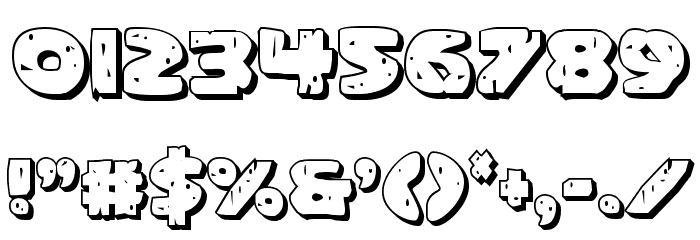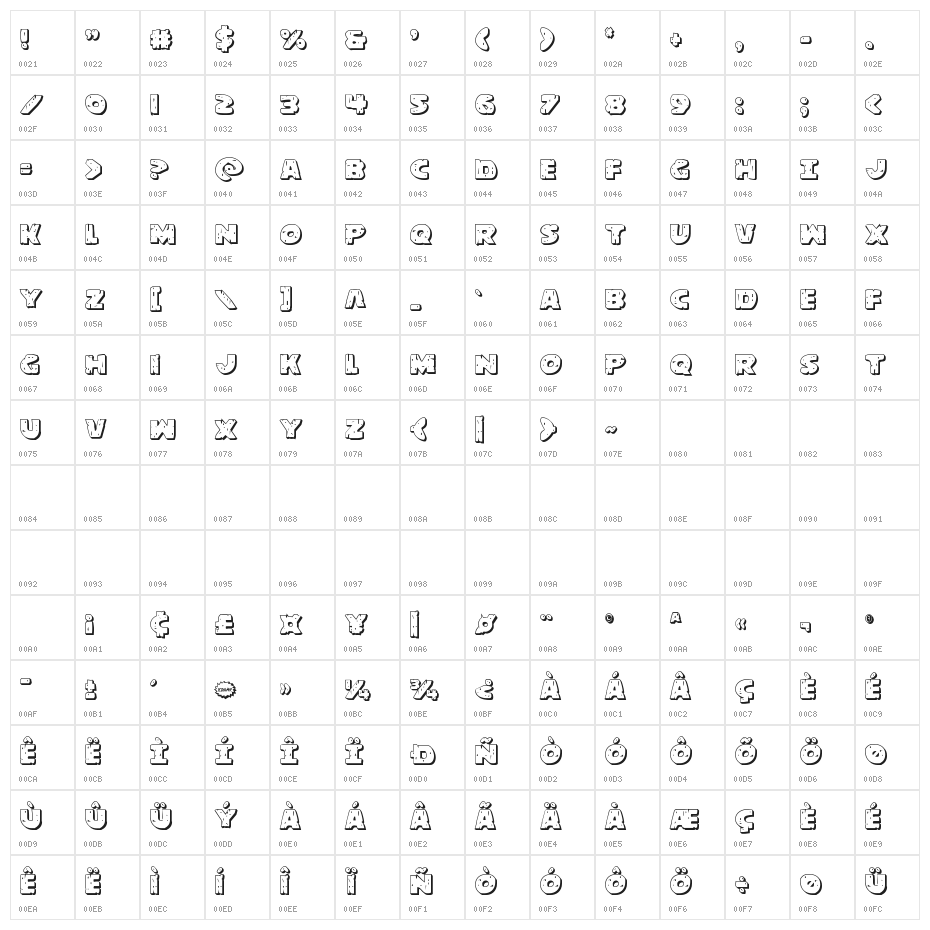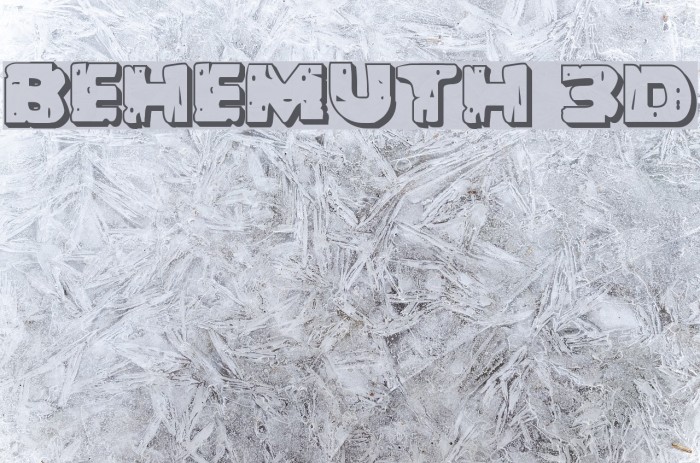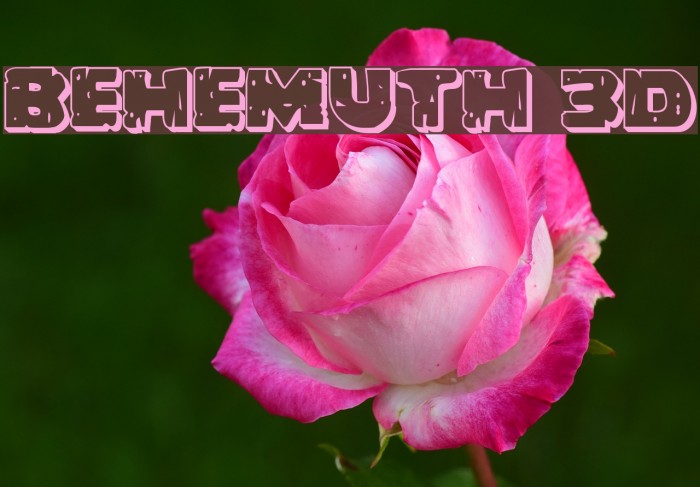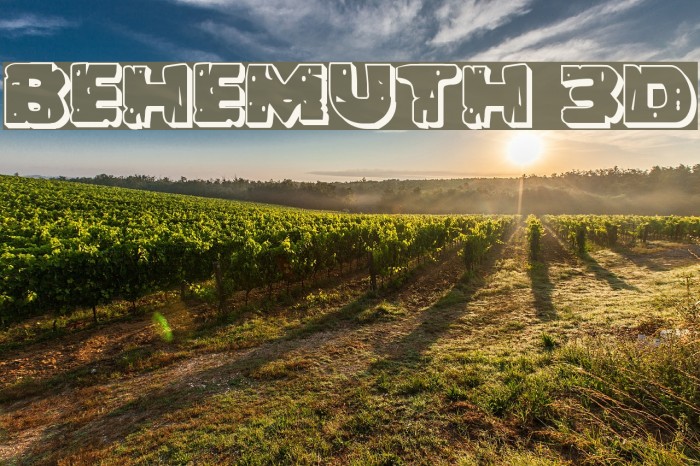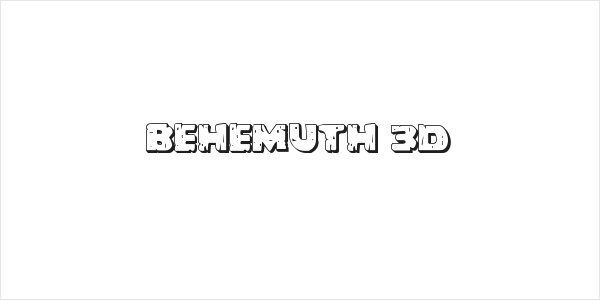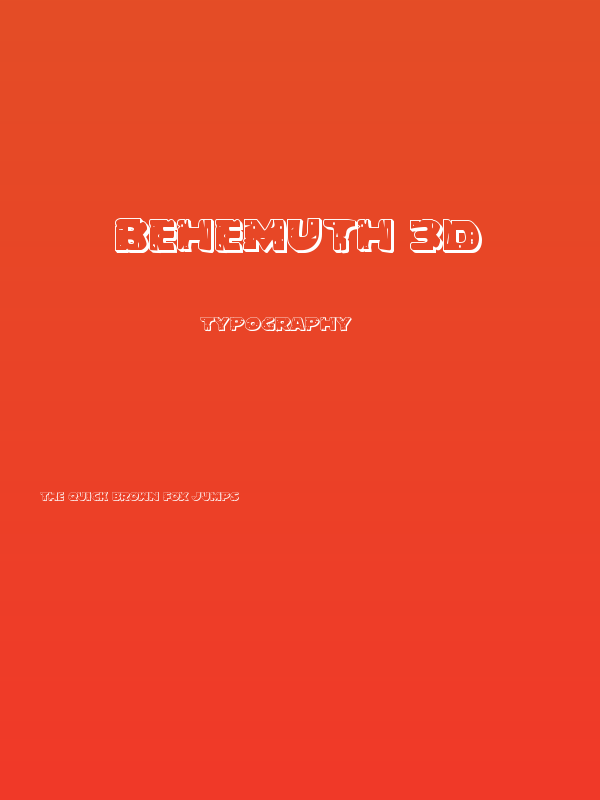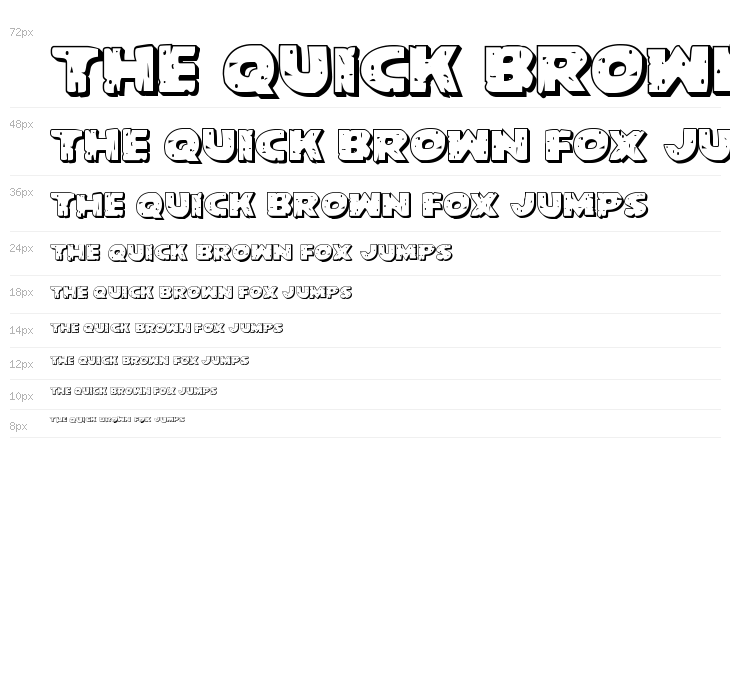
Behemuth 3D Font
Behemuth 3D Description
This font features a bold, three-dimensional style with a playful and cartoonish appearance. Each character is outlined with a thick black border, giving it a strong presence and making it stand out. The interior of the letters is filled with a white color, and the design includes small, irregular black dots and shapes that add a textured, almost comic-like effect. The characters are uniformly wide, contributing to a cohesive and balanced look. This font's unique style makes it ideal for projects that require a fun and engaging visual element.
| Overall Style | Playful, Cartoonish, Bold |
| Proposed Projects | Ideal for children's book covers, comic strips, playful branding, and eye-catching posters. |